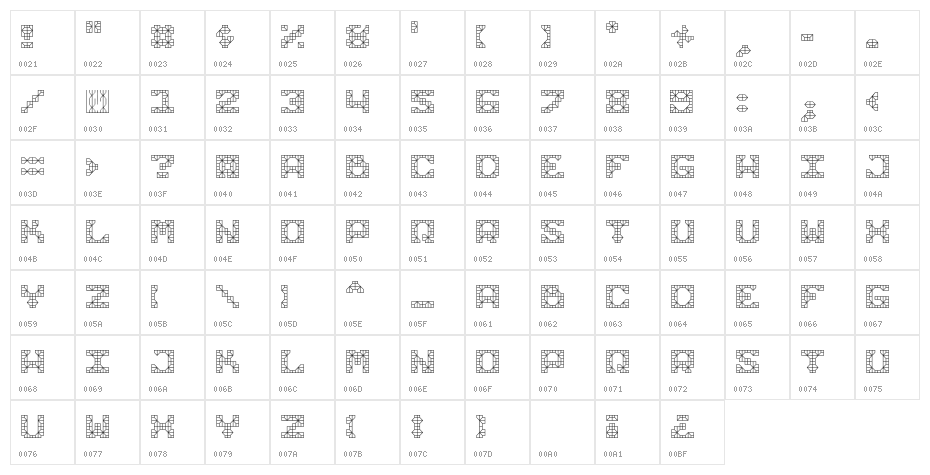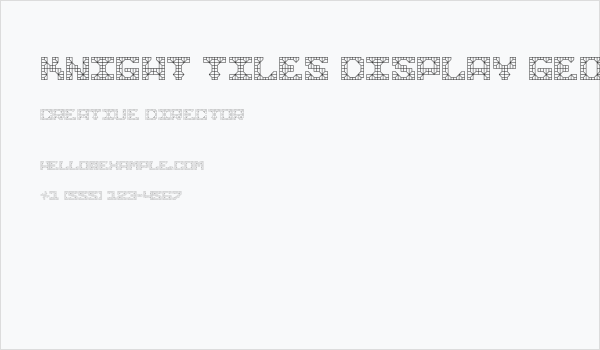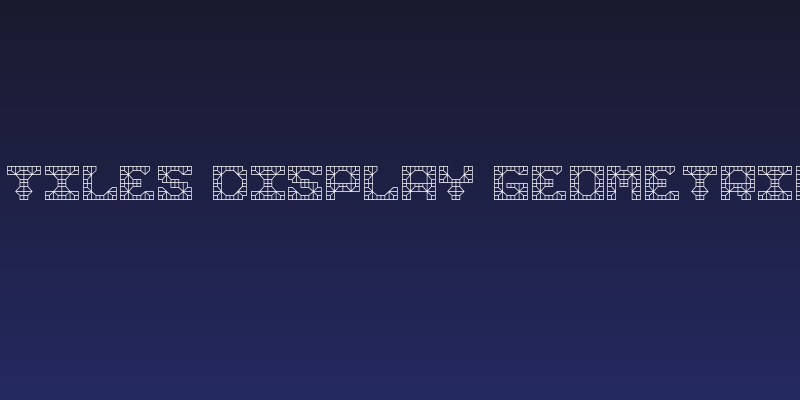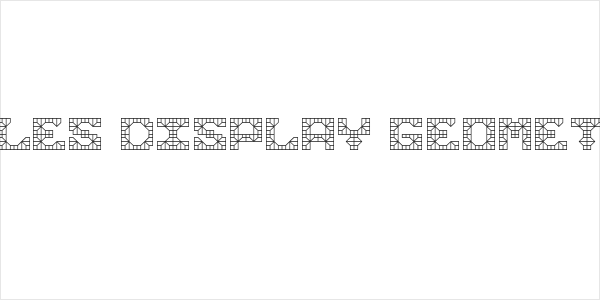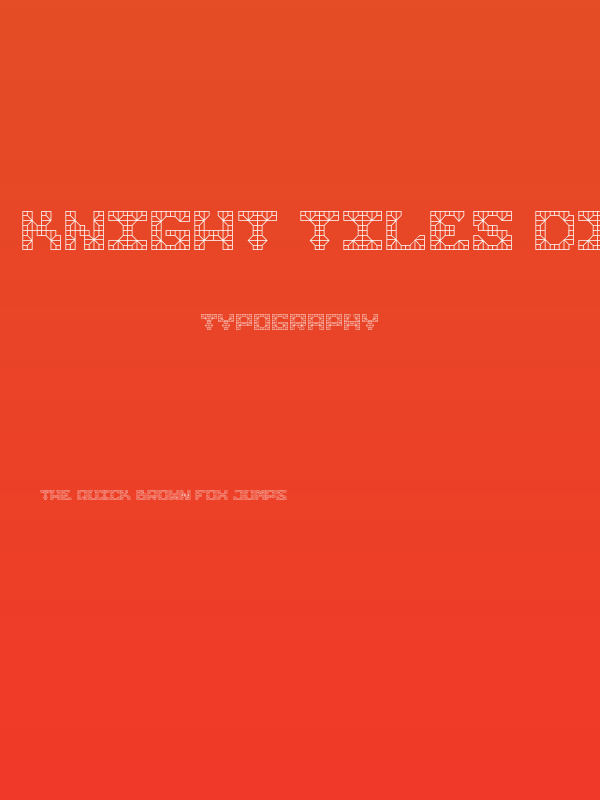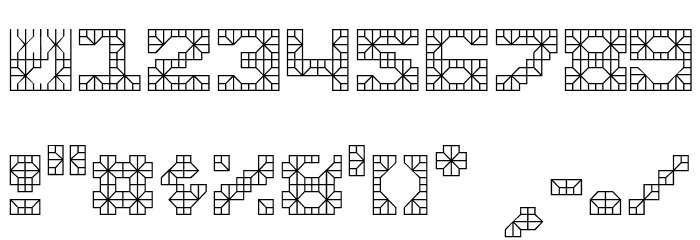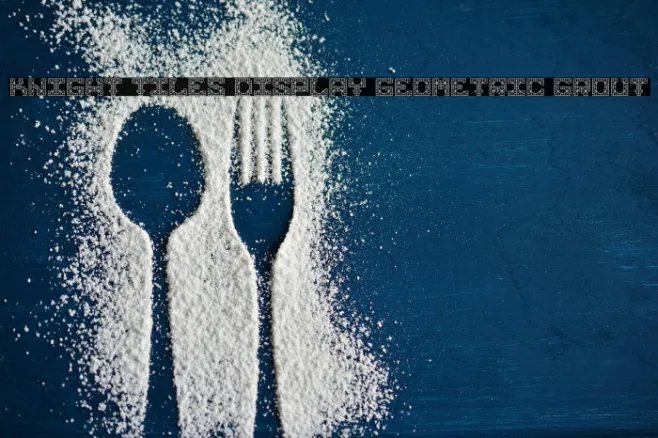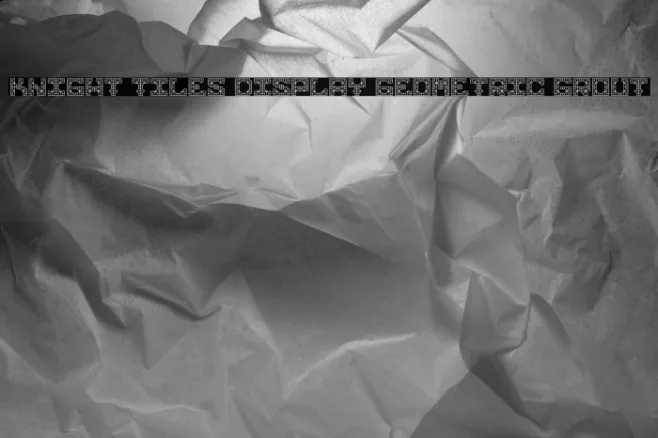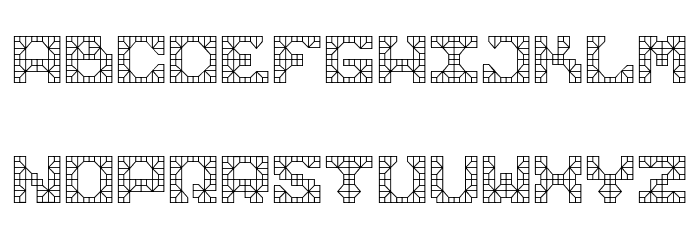
Knight Tiles Display Geometric Grout Font
Knight Tiles Display Geometric Grout Description
This font features a unique geometric design, reminiscent of intricate tile patterns. Each character is constructed from a series of small, angular shapes that fit together like a mosaic. The overall appearance is both structured and decorative, offering a modern twist on traditional geometric forms. The characters are uniform in height and width, providing a consistent and balanced look across the alphabet. This font is particularly striking in its ability to convey a sense of craftsmanship and precision, making it ideal for projects that require a bold and artistic statement.
| Proposed Projects | Ideal for branding, posters, and artistic projects that require a bold, decorative touch. |